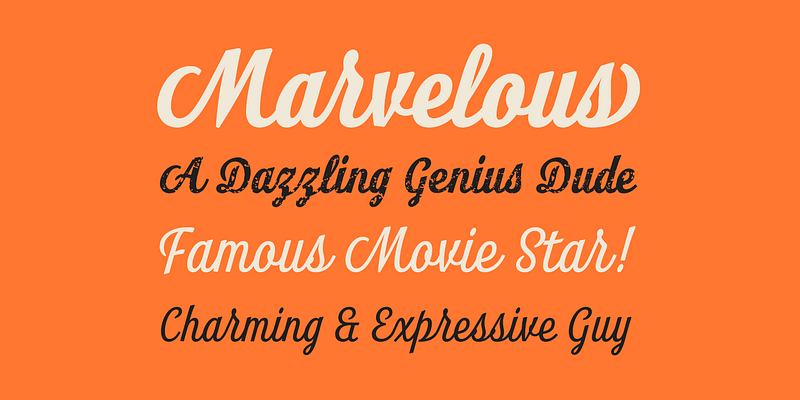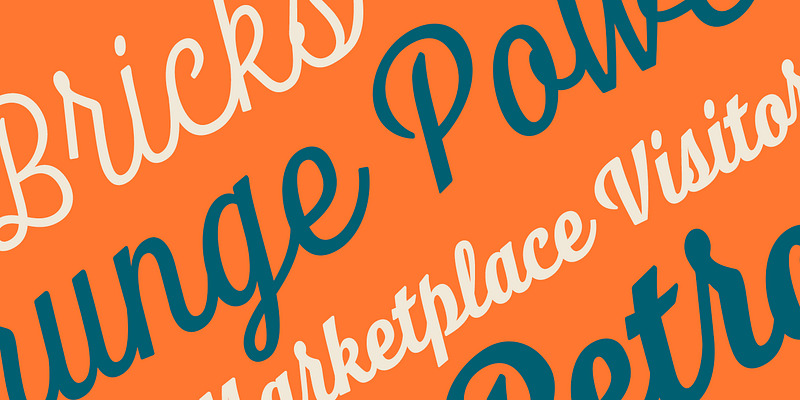
Look Script is a muscular and assertive vernacular script that will go the whole nine rounds.
Insigne Design has a wide range of quality typefaces, including sans serifs, scripts, text faces and experimental forms. Insigne is the foundry of Jeremy Dooley. Jeremy travels widely and has lived in Europe and the Middle East and is a graduate of Savannah College of Art and Design. Jeremy currently lives in Chattanooga, Tennessee, United States.